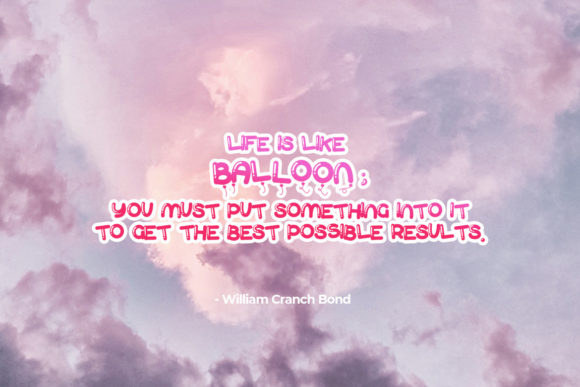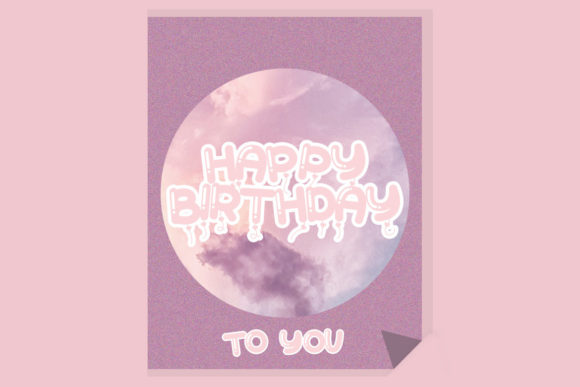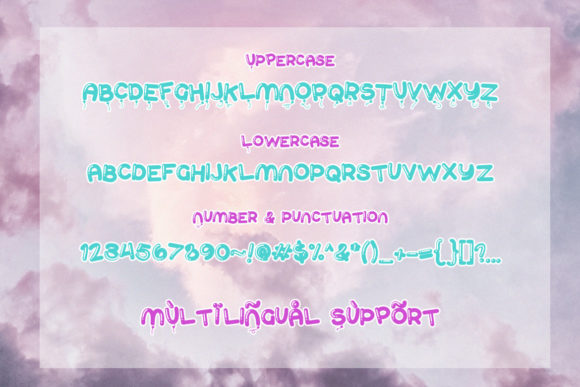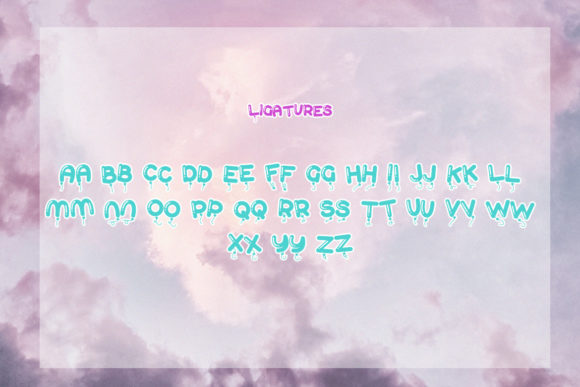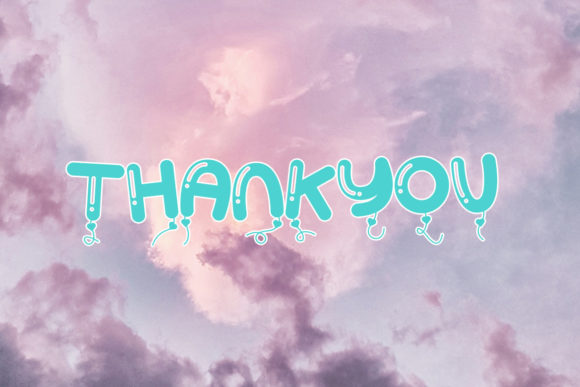
Baloen Font: Add a Playful Touch to Your Designs
Are you looking for a font that can add a dash of fun and playfulness to your designs? Look no further than Baloen Font! This delightful font is perfect for designers and crafters who want to create eye-catching and cheerful designs that are sure to bring a smile to anyone’s face.
What is Baloen Font?
Baloen Font is a playful, bouncy, and fun decorative font that is designed to add a lovely touch to any item. Its unique and quirky design makes it perfect for a variety of projects, from greeting cards and birthday cards to crafty ideas and DIY projects.
Characteristics of Baloen Font
Baloen Font has several characteristics that make it stand out from other fonts. Some of its key features include:
• Playful and bouncy design: Baloen Font has a fun and energetic design that is sure to add a playful touch to any project.
• Decorative and eye-catching: The font’s decorative design makes it perfect for creating eye-catching designs that are sure to grab attention.
• Versatile: Baloen Font can be used for a variety of projects, from digital designs to print projects.
Uses of Baloen Font
Baloen Font is a versatile font that can be used for a variety of projects, including:
• Greeting cards: Baloen Font is perfect for creating fun and playful greeting cards for special occasions.
• Birthday cards: The font’s playful design makes it ideal for creating birthday cards that are sure to bring a smile to the recipient’s face.
• Crafty ideas: Baloen Font can be used for a variety of crafty ideas, from scrapbooking to DIY projects.
• Digital designs: The font can be used for digital designs, such as social media graphics and blog posts.
Why Choose Baloen Font?
There are several reasons why designers and crafters choose Baloen Font for their projects. Some of the benefits of using Baloen Font include:
• Easy to read: Despite its playful design, Baloen Font is easy to read and can be used for both headings and body text.
• Unique design: Baloen Font has a unique design that sets it apart from other fonts.
• Time-saving: Using Baloen Font can save designers and crafters time, as it can be used to create a variety of designs quickly and easily.
Tips for Using Baloen Font
Here are some tips for using Baloen Font in your designs:
• Use it for headings: Baloen Font is perfect for headings and titles, as it adds a playful touch to any design.
• Experiment with colors: Baloen Font looks great in a variety of colors, so don’t be afraid to experiment and find the perfect color for your design.
• Pair it with other fonts: Baloen Font can be paired with other fonts to create a unique and eye-catching design.
Baloen Font is a playful, bouncy, and fun decorative font that is perfect for designers and crafters who want to add a lovely touch to their designs. Its unique design and versatility make it ideal for a variety of projects, from greeting cards and birthday cards to crafty ideas and digital designs. With its easy-to-read design and time-saving benefits, Baloen Font is a great choice for anyone looking to add a playful touch to their designs.
Get Creative with Baloen Font!
So why not get creative with Baloen Font today? With its fun and playful design, you’re sure to create eye-catching designs that are sure to bring a smile to anyone’s face. Whether you’re a designer or crafter, Baloen Font is the perfect choice for anyone looking to add a dash of fun and playfulness to their designs.